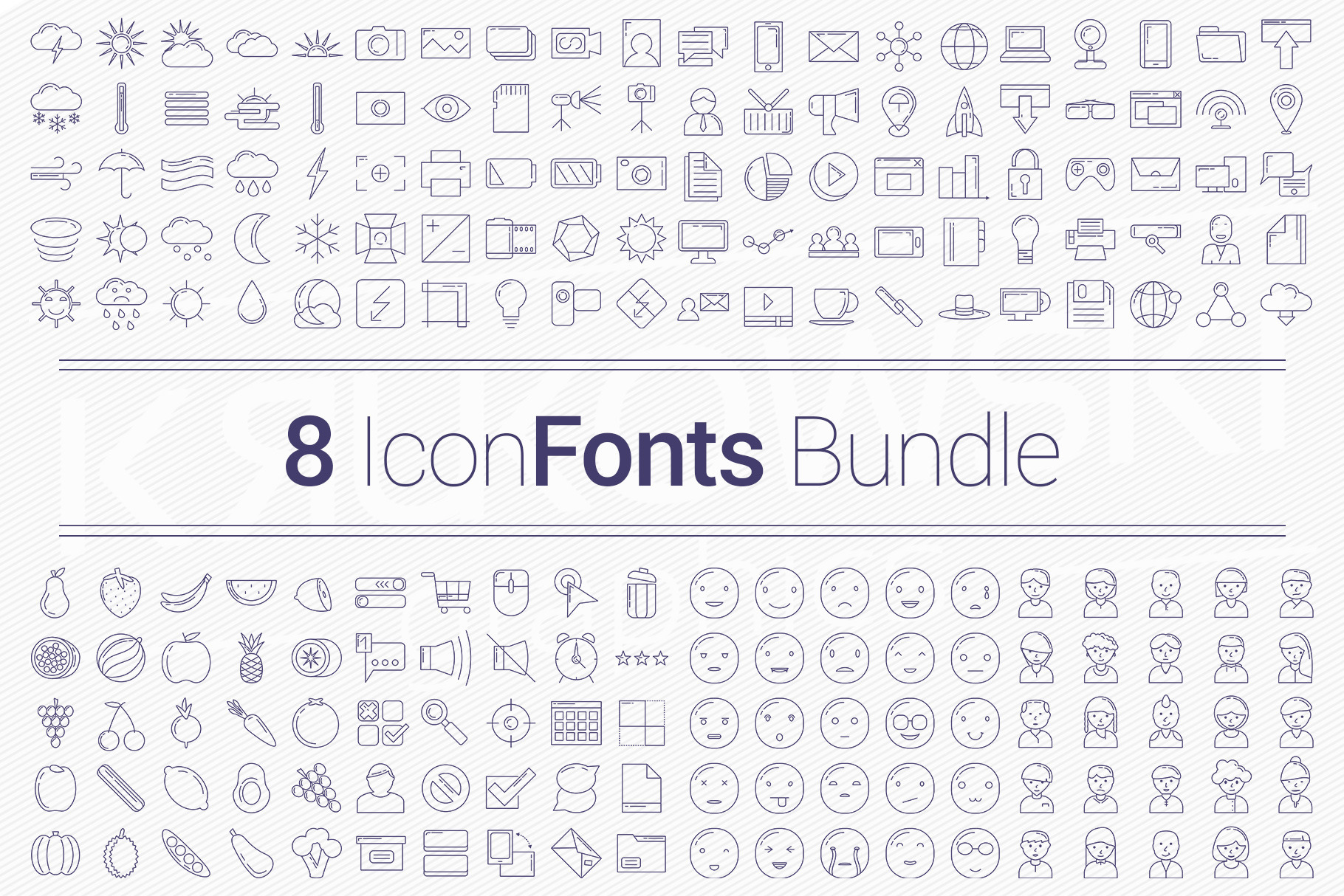
200 Icons in 8 Fonts - Bundle
Package contains 8 symbols fonts 25 Icons in each.
- Weather
- Photography
- Marketing
- Computers
- Fruits
- Interface
- Emoticons
- Avatars